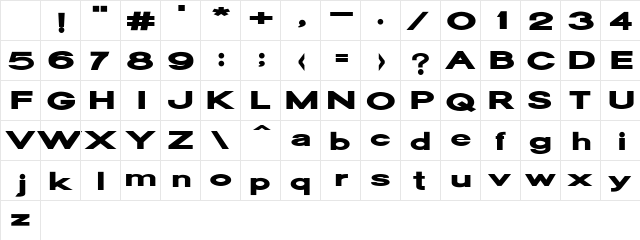
Complete Oscan Expanded Regular glyph index. Displaying only characters natively supported by Oscan Expanded Regular font.
Oscan Expanded is a composed and adaptable typeface that performs quietly and consistently across a wide range of design contexts.